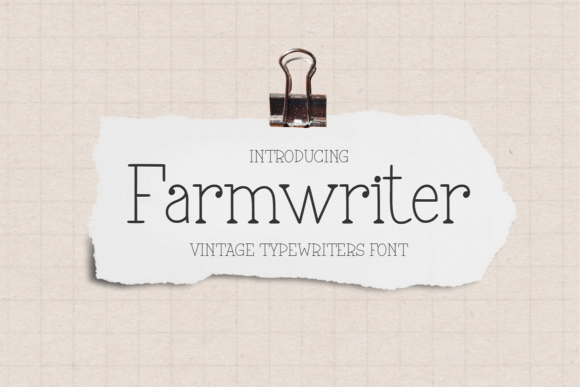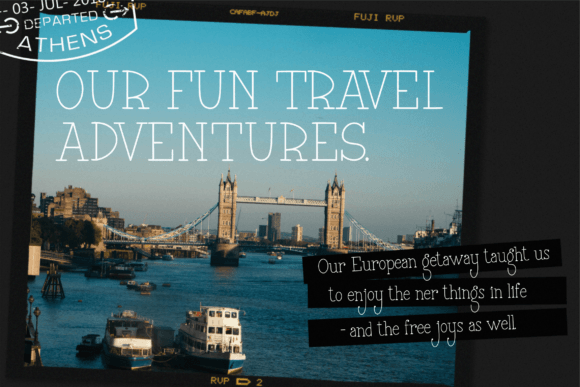
Farmwriter Font
Farmwriter is a fun vintage-typewriter display font that radiates a carefree spirit. With its friendly letterforms and approachable style, it brings a lighthearted charm to your designs. Ideal for projects that demand a relaxed and joyful aesthetic, Denjiro adds a delightful and easygoing flair to your creative expressions.